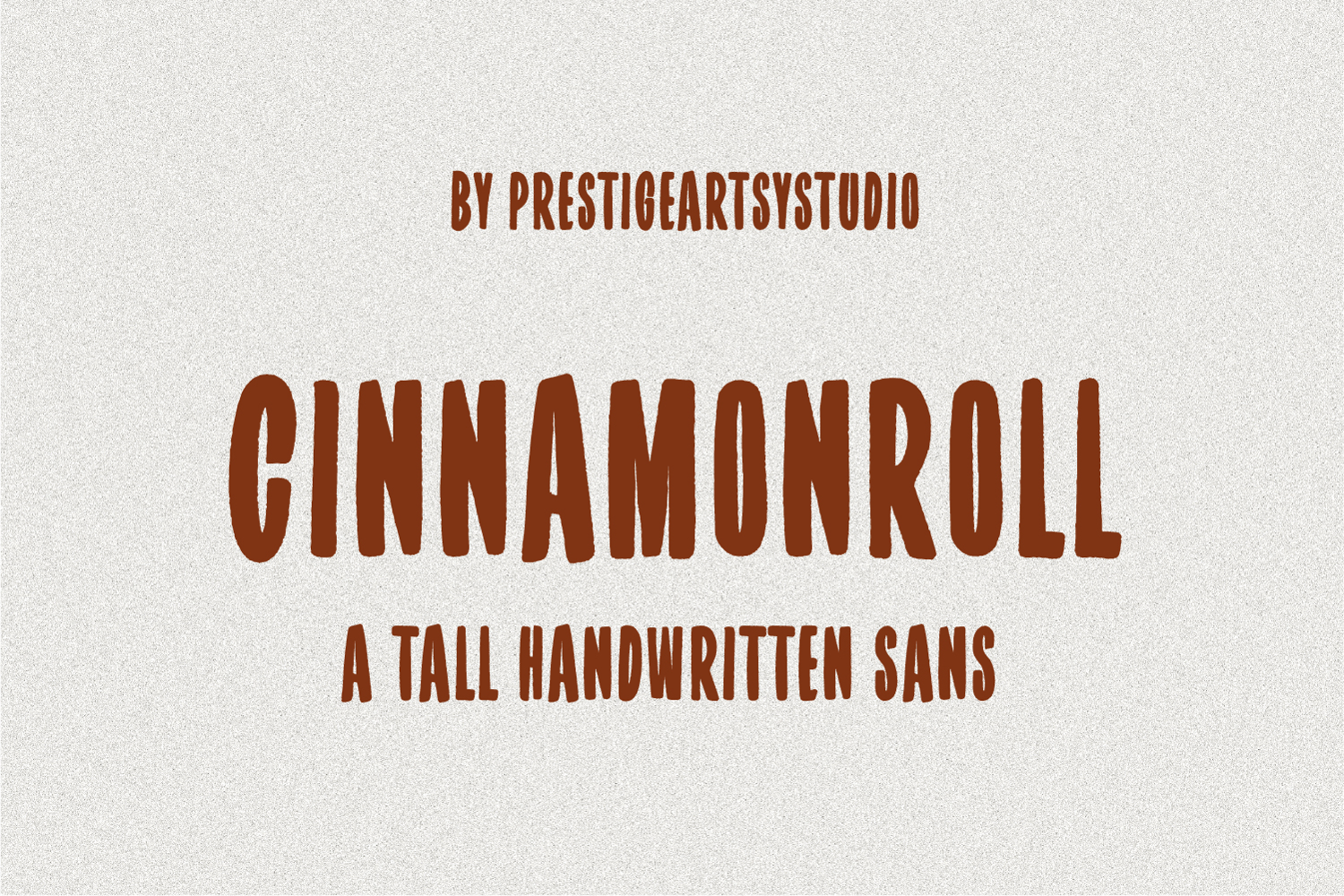
CinnamonRoll A Tall Sans Serif Font
✨ Introducing Cinnamonroll – A Long, Elongated Sans Serif Brush Font ✨
Add a bold and artistic touch to your designs with Ciannamonroll, a long, elongated sans serif brush font crafted to make your projects stand out. Its tall, sleek proportions mixed with natural brush textures give it a modern yet handcrafted vibe—perfect for headlines, logos, branding, posters, invitations, packaging, and social media graphics.
Whether you’re aiming for minimalist sophistication or expressive flair, Cinnamonroll adapts beautifully to every creative project.
✅ Features:
• Long, elongated sans serif style
• Handcrafted brush texture
• Perfect for logos, posters, branding, packaging, quotes & social media